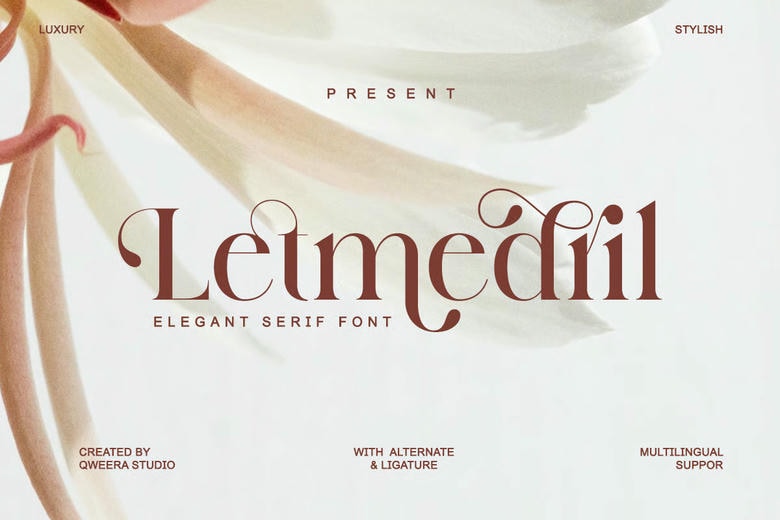
Lemedril Font
Lemedril – Modern Serif Font is a contemporary graceful serif typeface that is meant to be sophisticated in all times. It is ideal in wedding invitations, logos, fashion editorials, and luxury packaging because of its soft curves, artistic ligatures as well as confident shapes. It is the typeface that embodies beauty in each letter, and it is ideal to use in the project when the beauty, balance, and the high-quality expression are required.
Lemedril Serif Font